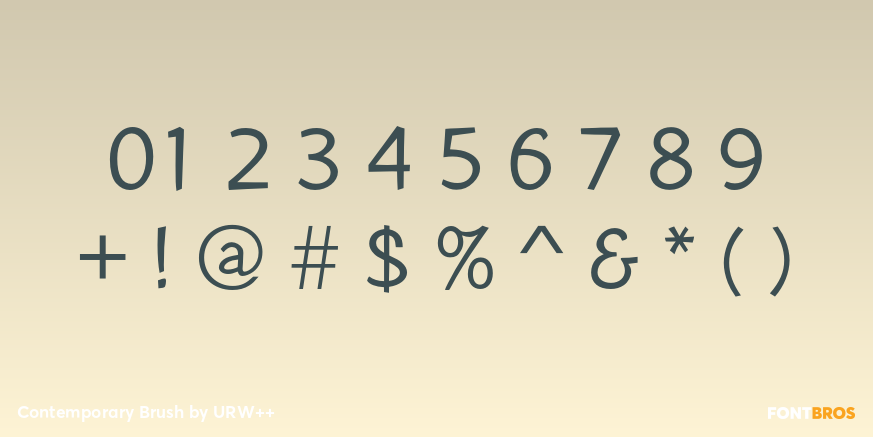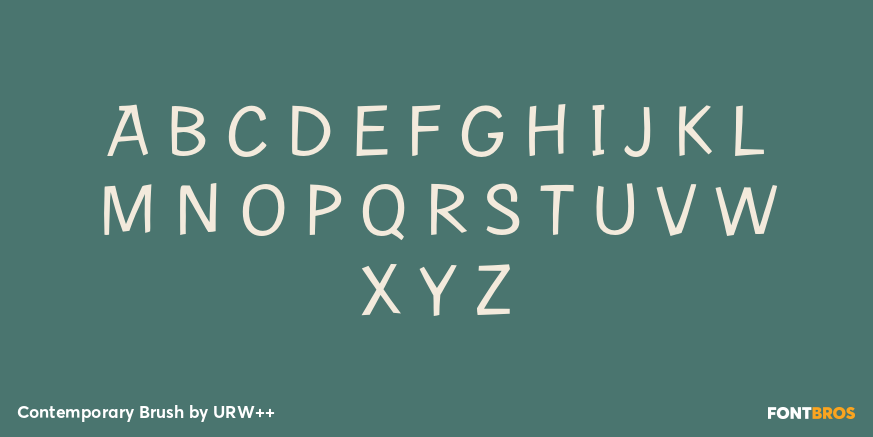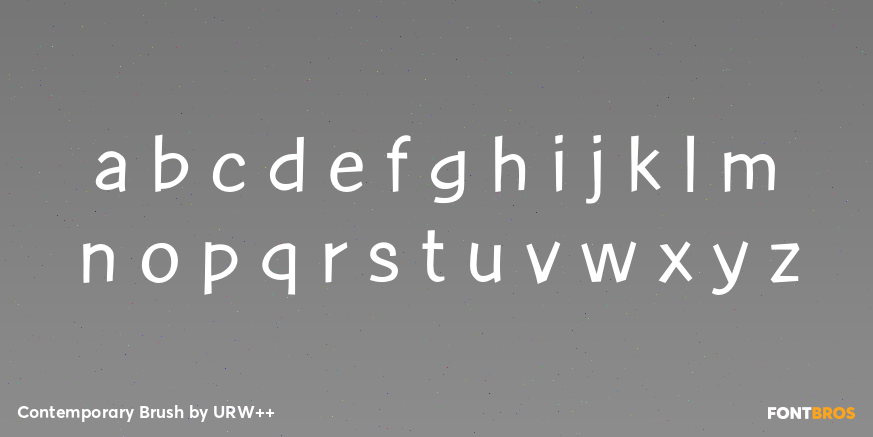
Contemporary Brush is a retro handwritten brush script with an energetic, mid-century feel. Its painted strokes and bold, casual rhythm give layouts a lively, human touch that feels expressive rather than polished, making it a strong choice when you want lettering with vintage personality.
Tagged with 1940s, 1950s, and 1960s influences, this family is especially well suited to poster work, branding, packaging, signage, and other display uses that benefit from a warm, nostalgic voice. It comes in 3 styles—Regular, Bold, and Extra Bold—so you can move from a lighter brush look to a fuller, more emphatic headline treatment while keeping the same character.
Published by URW++, this family offers a practical range for designers who want vintage brush lettering with enough variation to build a cohesive look across titles, labels, and standout graphic applications.